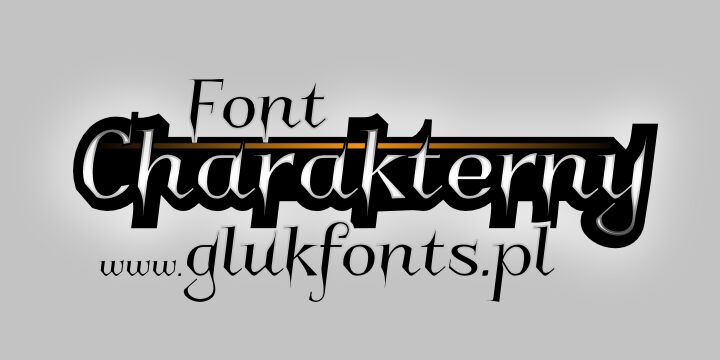
Charakterny by Gluk is a free modern Gothic display font with tall, blade-like letters and dramatic changes in stroke width. Its narrow curves bend sharply into long pointed tips, giving the alphabet an elegant but uneasy silhouette. The exaggerated forms feel theatrical rather than historical.
A fashion label or music imprint could use it for a dark identity. It also suits poster titles, album packaging, and event graphics built around gothic romance or surreal drama. Across them, repeated spikes and sweeping curves make the lettering part of the decorative image.
Charakterny by gluk is a free modern Gothic display font.